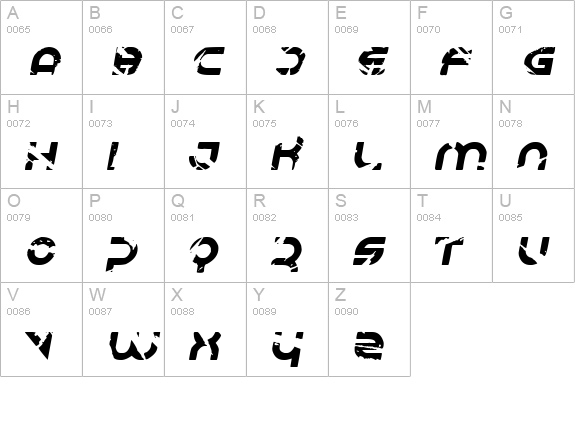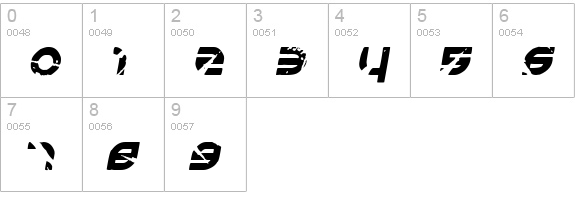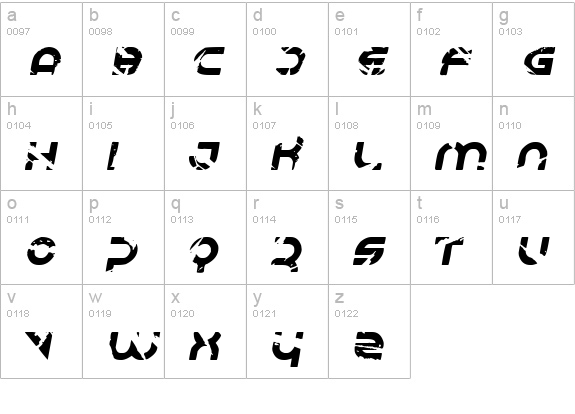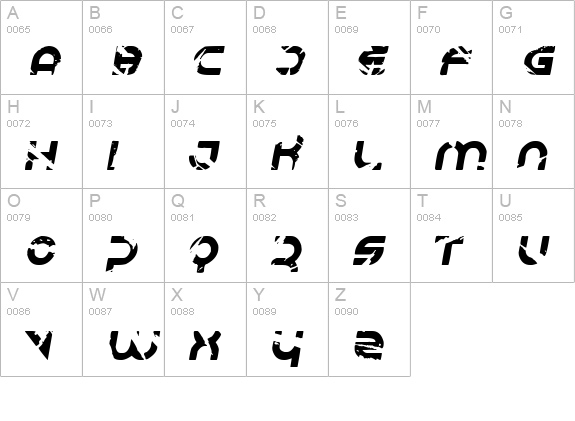
Respire Font Details
Introducing Respire font, a stunning display typeface that exudes elegance and sophistication. Its graceful curves and sharp lines make it perfect for creating eye-catching designs that demand attention. The Respire font is versatile and can be used for various projects, from branding to editorial design. What's even better is that Respire font is available for free download at FontsMarket.com. Yes, you read that right - this exquisite font can be yours at no cost, allowing you to elevate your design projects without breaking the bank. Don't miss out on this fantastic opportunity to add Respire font to your typographic arsenal and take your designs to the next level. Download it now and let your creativity soar!